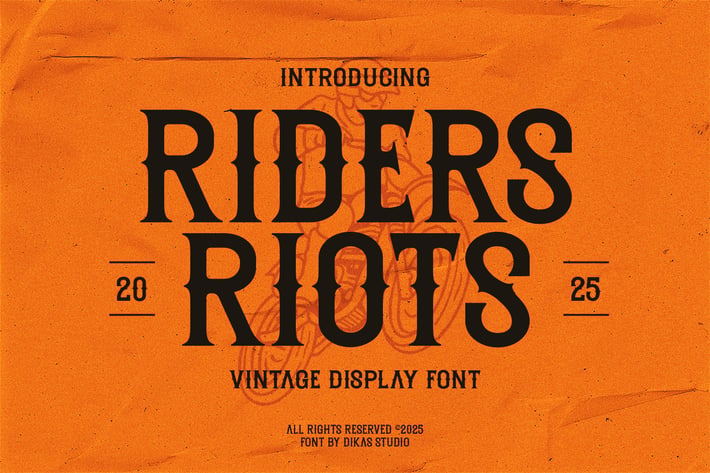
Riders Riots - Vintage Display Font
Riders Riots is a vintage serif display font that exudes strength and masculinity. With its bold and confident style, this font is tailor-made for designs inspired by the world of riders. Perfect for logos, apparel, posters, or branding, Riders Riots adds a rugged, adventurous vibe to any project.